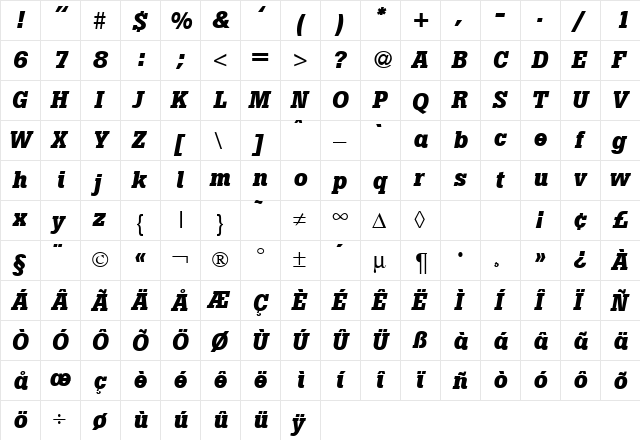
BottomLine RegularItalic
Design Context for BottomLine Typeface
BottomLine takes a measured approach to typography — its balanced proportions and neutral character make it a reliable workhorse for both digital and print work. The slanted form adds forward momentum and visual energy.
Pro Tip: Use BottomLine for emphasis, pull quotes, and subheadings where its slanted energy can add rhythm to the layout.